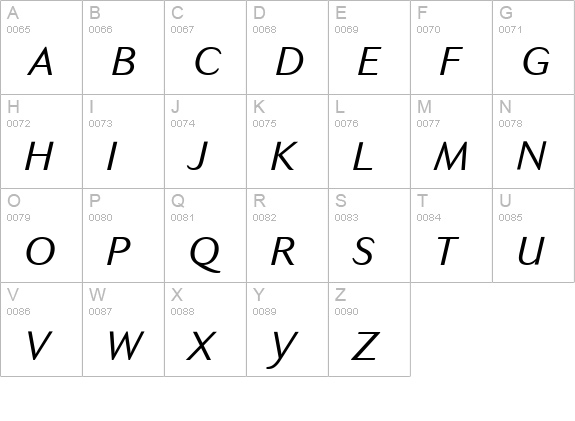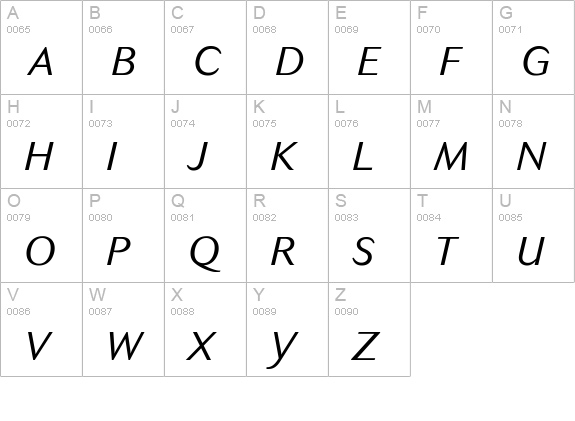
Cosmos (R) Light Italic is a refined, elegant, italic variant in the Cosmos typeface family \xE2\x80\x94 well suited to elegant body text, refined sub-headings, and luxury branding.
The Cosmos Light Italic font exudes elegance and sophistication with its delicate, flowing curves and refined letterforms. Perfect for adding a touch of style to any design project, this font effortlessly combines modernity with a timeless aesthetic. What's even better is that Cosmos Light Italic is completely free to download at FontsMarket.com. Whether you're working on a branding project, creating invitations, or designing a website, this font is sure to elevate your work with its subtle yet impactful presence. Embrace the beauty and versatility of Cosmos Light Italic in your designs today and experience the freedom of creative expression that comes with using this stunning font. Download it for free now at FontsMarket.com and let your creativity soar.